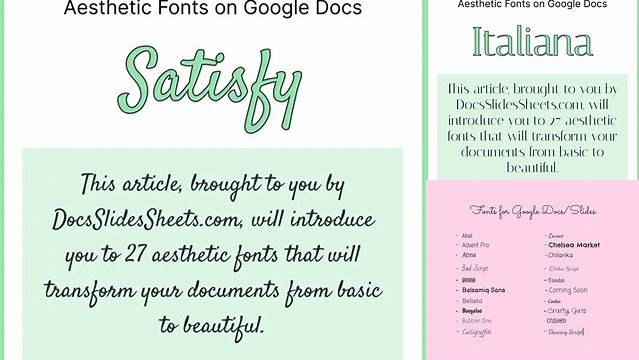
Aesthetic Fonts For Google Docs: Cute & Stylish Guide
Hey guys! Ever feel like your Google Docs are just… blah? You know, functional but totally lacking in personality? Well, let's fix that! One of the easiest ways to inject some serious aesthetic vibes into your documents is by choosing the right fonts. And guess what? Google Docs has a bunch of hidden gems just waiting to be discovered. We're diving deep into the world of cute fonts on Google Docs, so you can make your reports, essays, and even grocery lists look absolutely fabulous.
1. What Makes a Font "Cute" for Google Docs?
Okay, first things first: what exactly is a "cute" font? Well, that's kinda subjective, right? But generally, we're talking about fonts that are playful, approachable, and visually appealing. They often have rounded edges, whimsical details, or a handwritten feel. Think fonts that make you smile! When choosing cute fonts on Google Docs, consider the overall tone you're going for. Are you writing a lighthearted blog post? Or maybe a heartfelt letter to a friend? The font should match the mood. Don't use a super bubbly font for a serious research paper, unless you're trying to be ironic (which, you know, could work too!). Experiment with different fonts to see what resonates with you. Try pairing different fonts with each other. Sometimes, a serif font with a sans-serif font for headings can really elevate the overall look. Also, pay attention to readability. A font might be super cute, but if it's hard to read, it's not going to be very useful. Look for fonts that are clear and legible, even at smaller sizes. Consider testing out a few different options by sending sample documents to friends or colleagues to gather feedback on visual appeal and clarity. Keep in mind that font availability can vary depending on the platform (e.g., web, desktop, mobile app). Always double-check to ensure your chosen font renders correctly across all devices and browsers to maintain visual consistency.
2. Top 5 Cute Handwritten Fonts for a Personal Touch
Let's talk handwritten fonts! These are perfect for adding a personal touch to your Google Docs. Imagine using a handwritten font for invitations, thank you notes, or even a journal entry. It instantly makes the document feel more intimate and special. My top 5 cute fonts on Google Docs for a handwritten feel include:
- Patrick Hand: This is a classic! It's clean, legible, and has a friendly vibe.
- Indie Flower: A bit more whimsical than Patrick Hand, Indie Flower is great for a playful touch.
- Coming Soon: This font has a cool, slightly messy feel, like you just jotted something down in your notebook.
- Permanent Marker: Bold and attention-grabbing, Permanent Marker is perfect for headings or highlighting important information.
- Rock Salt: A slightly rougher, more textured handwritten font that adds a bit of edginess to your document.
When using handwritten fonts, be mindful of readability. Avoid using them for large blocks of text, as they can be tiring to read. Instead, use them sparingly for headings, subheadings, or short quotes. Also, consider the context. A handwritten font might not be appropriate for a formal business document, but it could be perfect for a birthday card or a personal blog post. Experiment with different sizes and colors to see what looks best. A larger font size can make the handwritten font more prominent, while a different color can add a pop of visual interest. And finally, don't be afraid to mix and match! Try pairing a handwritten font with a more traditional serif font for a balanced and visually appealing look.
3. Adorable Serif Fonts: Elegant and Playful
Serif fonts, with their little feet (or serifs!) at the end of each letter, can be surprisingly cute! They often have an elegant and playful vibe, making them perfect for adding a touch of sophistication to your Google Docs. Think about using a serif font for the body text of a novel, a formal invitation, or even a stylish resume. Some adorable cute fonts on Google Docs that are serif include:
- Playfair Display: A beautiful and elegant serif font with a slightly vintage feel.
- Lora: A well-balanced and readable serif font that's perfect for body text.
- Arvo: A more geometric serif font with a strong, modern feel.
- Bitter: A slightly condensed serif font that's great for fitting more text on a page.
- Roboto Slab: A modern and versatile serif font that works well for both headings and body text.
When using serif fonts, pay attention to the spacing between the letters (kerning) and the lines (leading). Proper spacing can make a huge difference in readability. Also, consider the font size. Serif fonts tend to look best at slightly larger sizes. Experiment with different weights (bold, italic, regular) to see what creates the most visual impact. A bold serif font can be great for headings, while a regular weight serif font is perfect for body text. Don't be afraid to use different serif fonts together! Pairing a serif font with a sans-serif font can create a visually interesting contrast. And finally, remember to consider the overall tone of your document. A serif font can add a touch of elegance, but it can also feel a bit formal. Make sure the font matches the mood you're trying to convey.
4. Cute Sans-Serif Fonts: Modern and Friendly
Sans-serif fonts, without the little feet, tend to look modern and friendly. They're perfect for creating a clean and approachable look in your Google Docs. Envision using a sans-serif font for a website, a presentation, or even a simple email. They're versatile and easy to read, making them a great choice for a wide variety of projects. My favorite cute fonts on Google Docs that are sans-serif include:
- Montserrat: A popular and versatile sans-serif font with a clean and modern feel.
- Open Sans: A highly readable sans-serif font that's perfect for body text.
- Lato: A slightly rounded sans-serif font with a warm and friendly vibe.
- Raleway: A stylish and elegant sans-serif font that's great for headings.
- Nunito: A rounded sans-serif font with a playful and approachable feel.
When working with sans-serif fonts, keep in mind that they generally look best at smaller sizes. Also, pay attention to the line height. A slightly larger line height can improve readability, especially for longer blocks of text. Consider using different weights and styles to create visual interest. A bold sans-serif font can be great for headings, while an italic sans-serif font can be used for emphasis. Don't be afraid to experiment with different colors. A colorful sans-serif font can add a pop of personality to your document. And finally, remember to choose a sans-serif font that complements the overall design of your document. A clean and simple sans-serif font can work well with a minimalist design, while a more decorative sans-serif font can add a touch of flair to a more elaborate design.
28. Ethical Considerations When Choosing Cute Fonts
29. Best Cute Fonts for Academic Papers
30. Cute Fonts and Accessibility: Best Practices